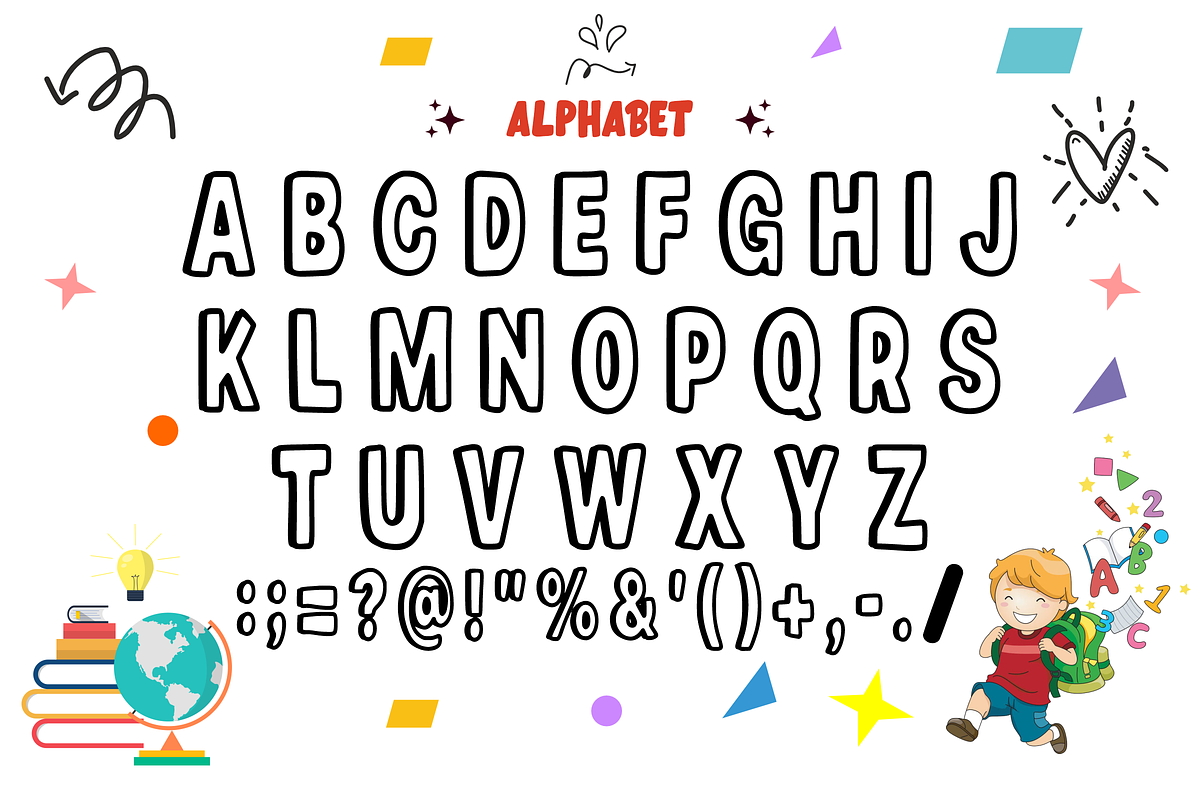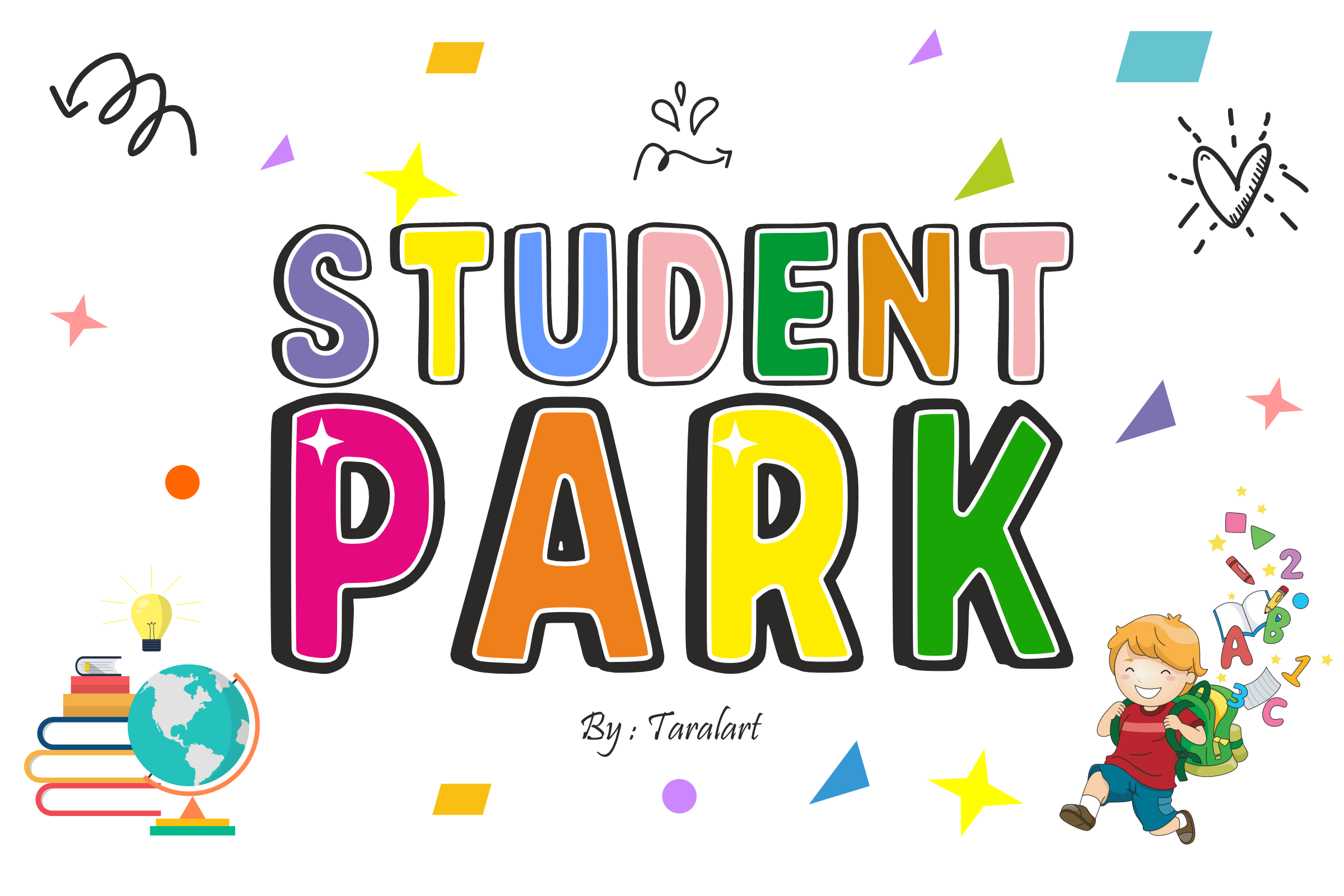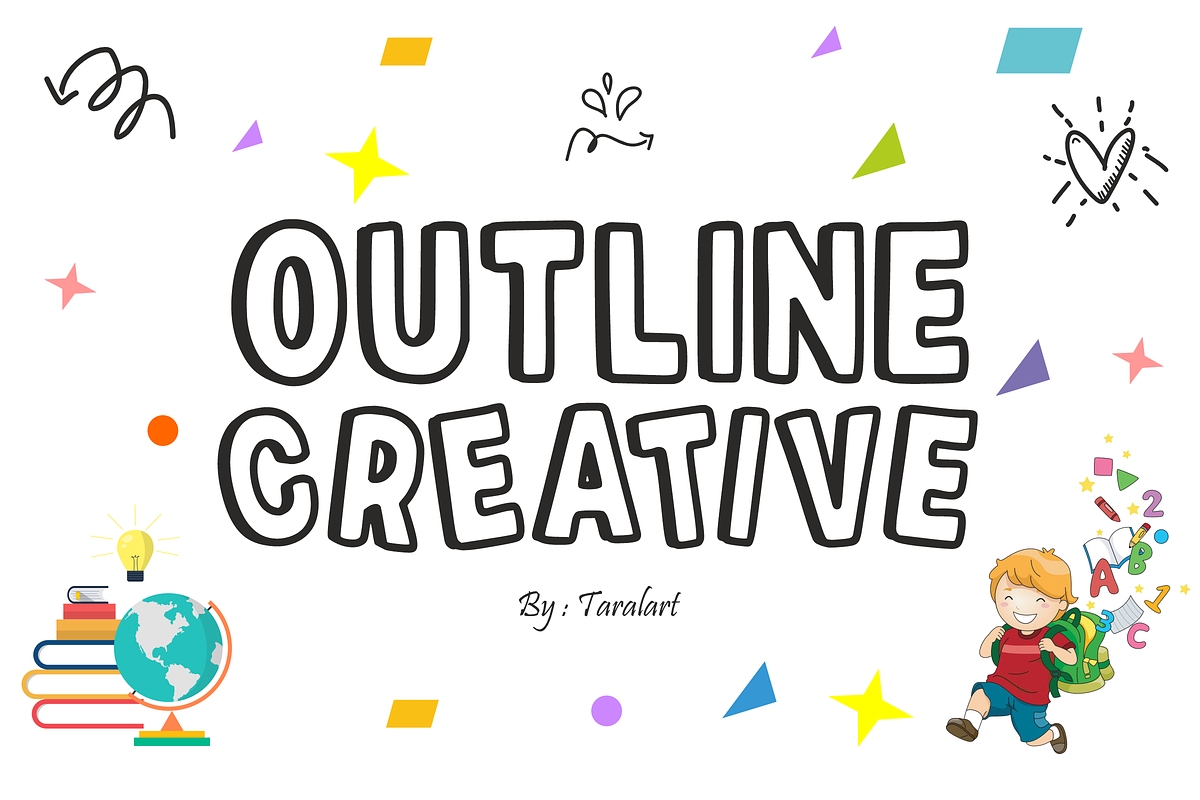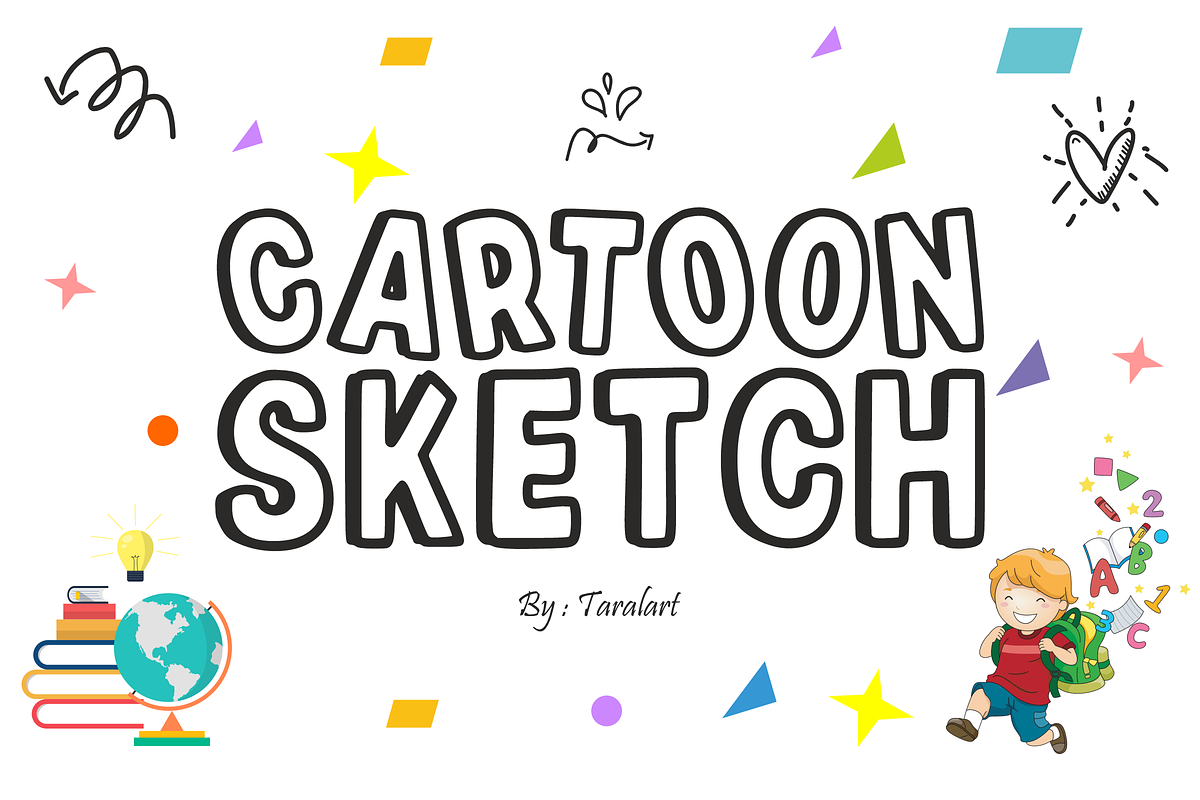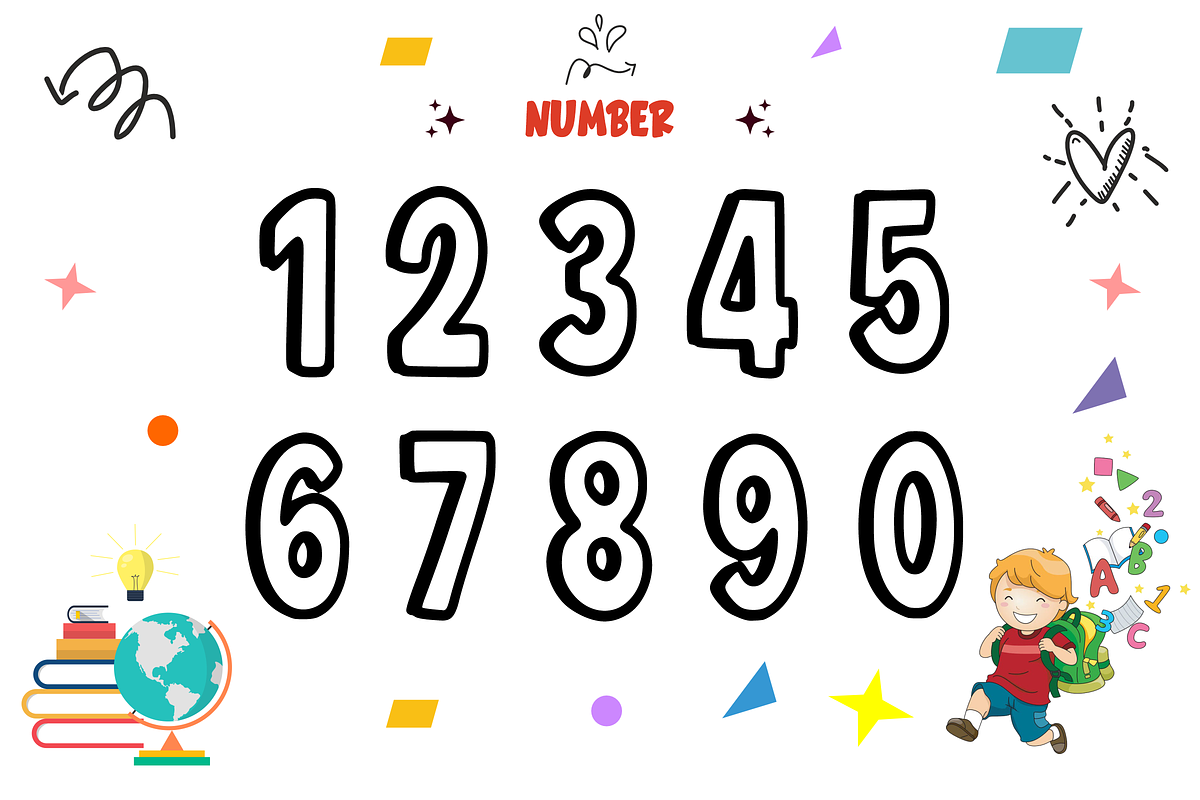
Student Park - Playful School Font
Add a cheerful, energetic spark to your educational designs with Student Park! This bold, chunky display font features clean block letters paired with a striking drop-shadow effect and playful inline details. It is specifically designed to make classroom materials, children's crafts, and school event promotions look fun, organized, and highly engaging.
Perfect for teachers, crafters, and product creators, Student Park combines an enthusiastic academic aesthetic with excellent readability. It is highly versatile, cuts beautifully on crafting machines, and is fully optimized for smooth performance across all professional design software and printing setups.
All-Caps Character Set (Chunky, layered-style uppercase letters with crisp shadow effects)
Numbers & Simple Punctuation (Essential, clean symbols included)